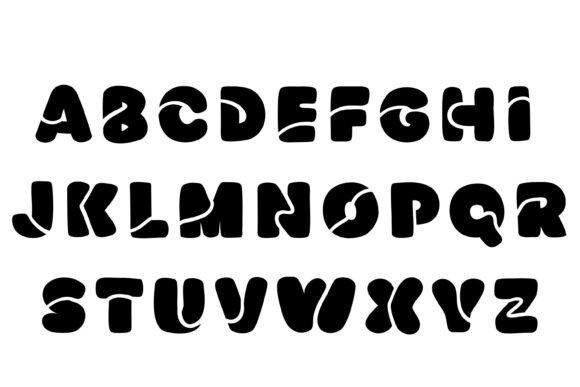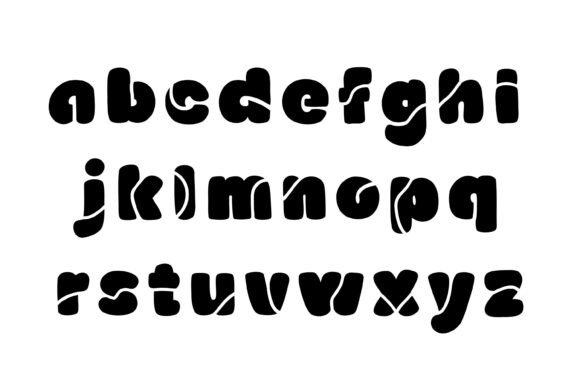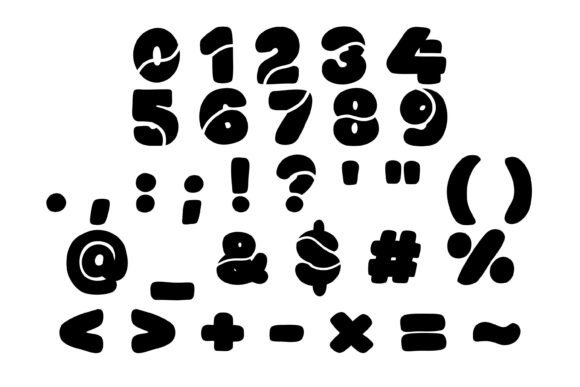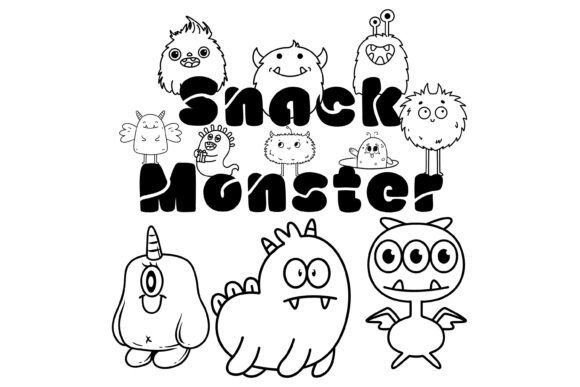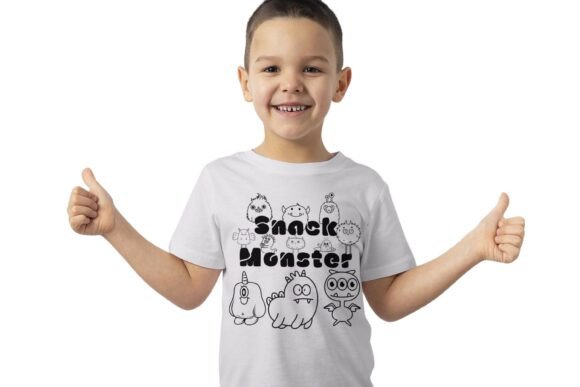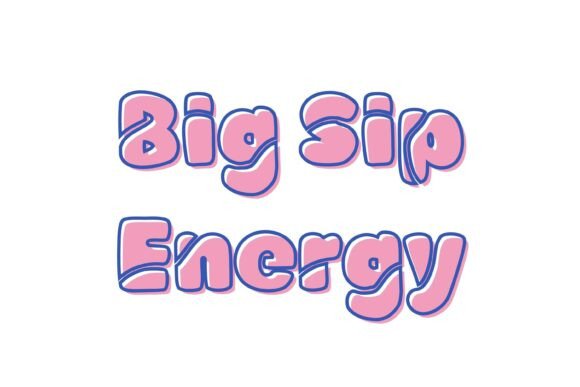
Unleash Your Creativity with Bopslice Font
Have you ever stared at a blank canvas, brainstorming ideas for the perfect design? That’s exactly where I was when I first laid eyes on the Bopslice Font. Its playful, chunky bubble letters and rounded shapes instantly sparked a wave of creativity, begging to be brought to life. This bold, handwritten display font is designed to add a pop of fun to any project, from stickers and party invites to logos and YouTube thumbnails.
As a designer, you know how crucial the right font can be in elevating your work. That’s why I’m excited to share the Bopslice Font with you – a versatile tool that’s sure to become a go-to in your design arsenal. With its easy installation and instant use, you can start creating eye-catching titles, logos, and graphics in no time.
Bopslice Font Key Features
- Unique Characteristics: The font features a unique blend of modern and vintage elements, with bold lines, geometric shapes, and a touch of nostalgia.
- Kerning and Ligatures: The font includes advanced kerning and ligature features, ensuring smooth and professional-looking text.
Bopslice Font Review
After diving into the Bopslice Font, I wanted to share my honest thoughts on what makes it tick, and what could be improved.
- Unique Character: Bopslice has a distinct, quirky feel that’s perfect for adding some personality to your designs.
- Playful yet Polished: The font’s playful nature doesn’t come at the expense of readability, making it suitable for both creative and professional projects.
- Style Versatility: From headlines to body text, Bopslice’s style adapts well to different contexts, giving designers plenty of creative freedom.
- Limited Font Sizes: While Bopslice looks great at standard font sizes, it starts to lose its charm at smaller or larger sizes.
- Lack of Italic and Bold Options: While not a deal-breaker, the absence of italic and bold variants might limit designers’ ability to create contrast in their designs.
Overall, I’d say Bopslice is a solid choice for designers looking to add some whimsy to their projects. While it has its limitations, its unique character and style versatility make it a great addition to any design toolkit.
For optimal results, use the Bopslice Font for headings and titles. It’s also great for creating a modern, minimalist look in social media graphics, logos, and marketing materials.